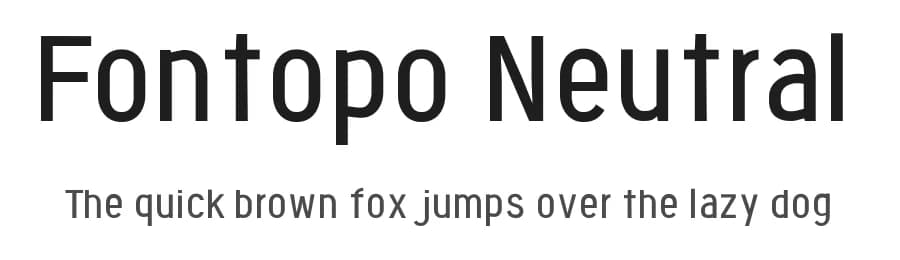
About Fontopo Neutral Font
Fontopo Neutral is a sans-serif font designed by Yoshihisa Nakai. It includes 94 glyphs, a regular weight, TTF (TrueType) format, and 104 languages. Fontopo Neutral is free to download; check the license details on this page before commercial use. Sans-serif fonts like Fontopo Neutral work best for clean body text, user interfaces, branding, and modern layouts.
Fontopo Neutral Font is a versatile sans-serif font that works for both headings and body text. Pair it with a contrasting serif or slab serif font to add visual interest and a clear distinction between titles and body copy.
Fontopo Neutral Font
Fontopo Neutral Font is a sans serif typeface by Yoshihisa Nakai, ideal for logos, invitations, branding, and creative projects.